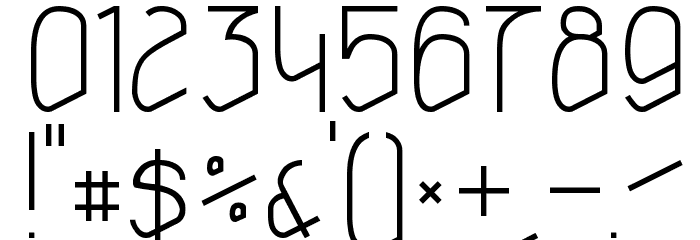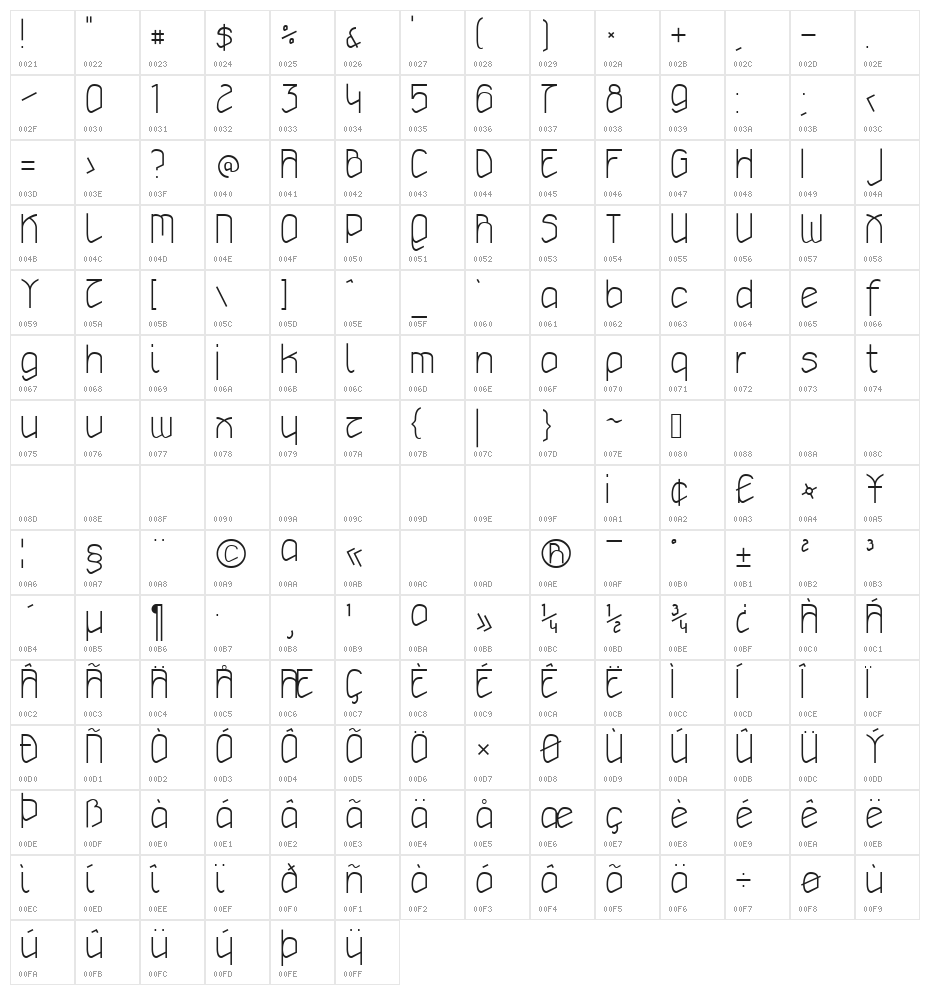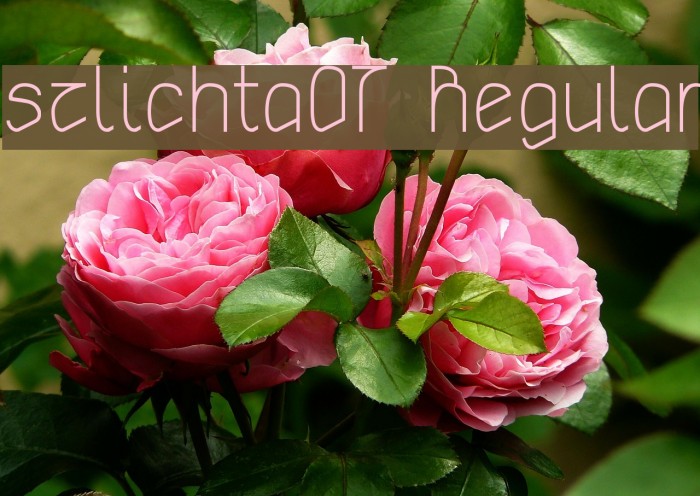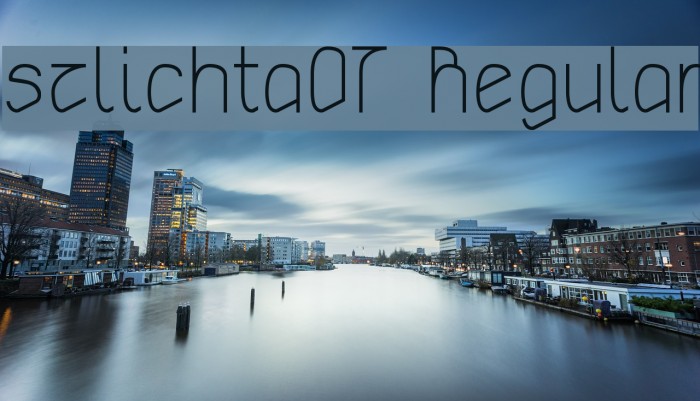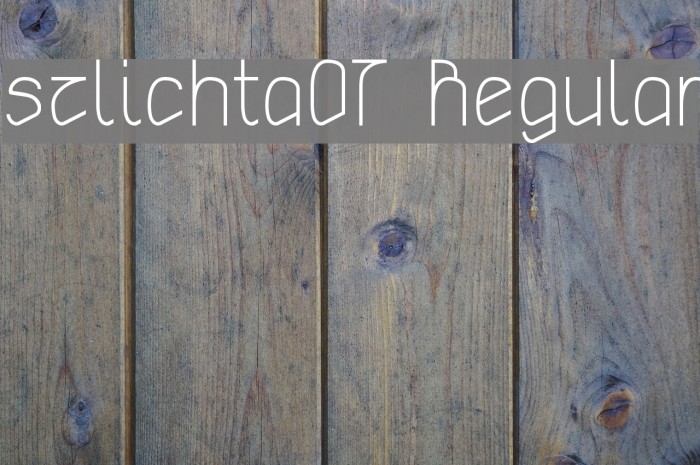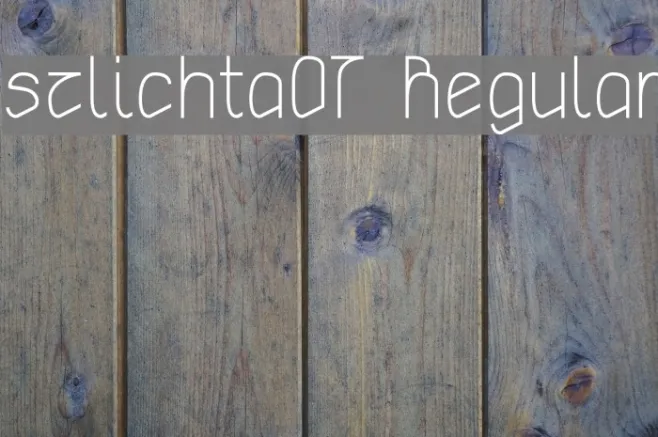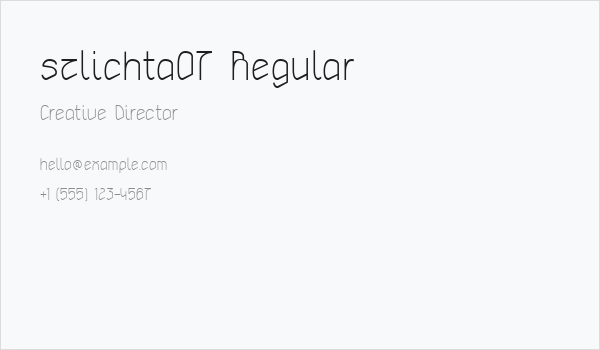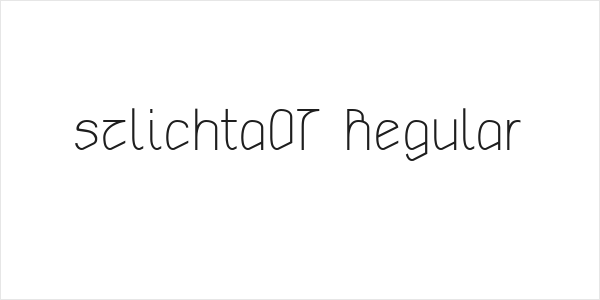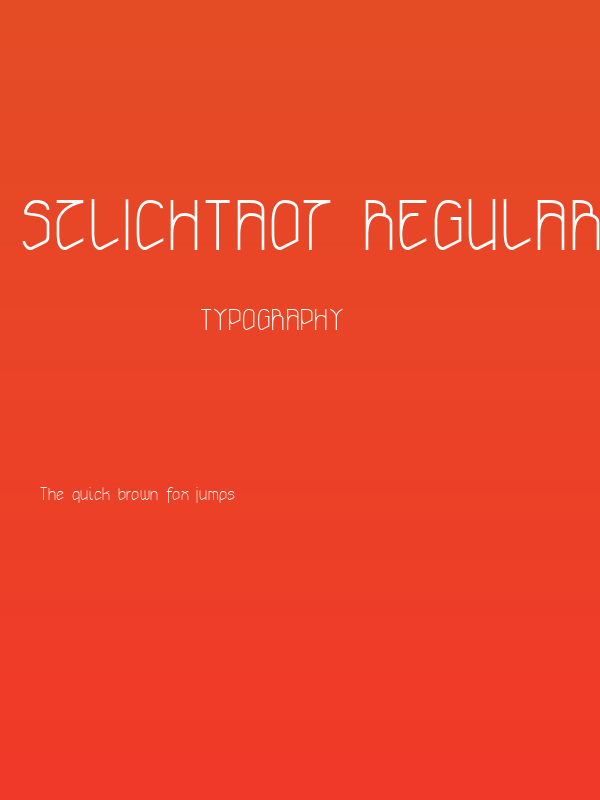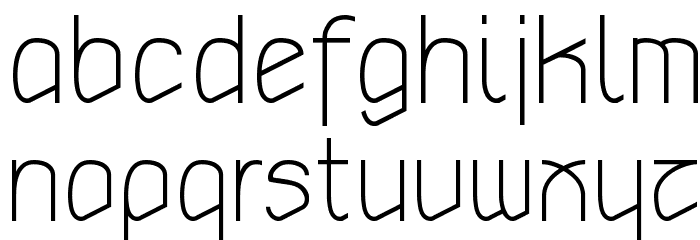
szlichta07 Regular Font
szlichta07 Regular Description
This font features a unique and modern design with a geometric and slightly futuristic appearance. The characters are composed of clean, straight lines and rounded edges, giving it a sleek and minimalist look. The uppercase letters maintain a consistent height, while the lowercase letters have a uniform x-height, contributing to its readability. The numerals are distinct and align well with the overall style, making them easily distinguishable. Special characters are designed to match the font's aesthetic, ensuring a cohesive appearance across all glyphs. This font's simplicity and clarity make it versatile for various design applications.
| Use Case | Headlines, Logos, User Interfaces |
| Proposed Projects | Ideal for tech branding, modern websites, app interfaces, and minimalist graphic design projects. |